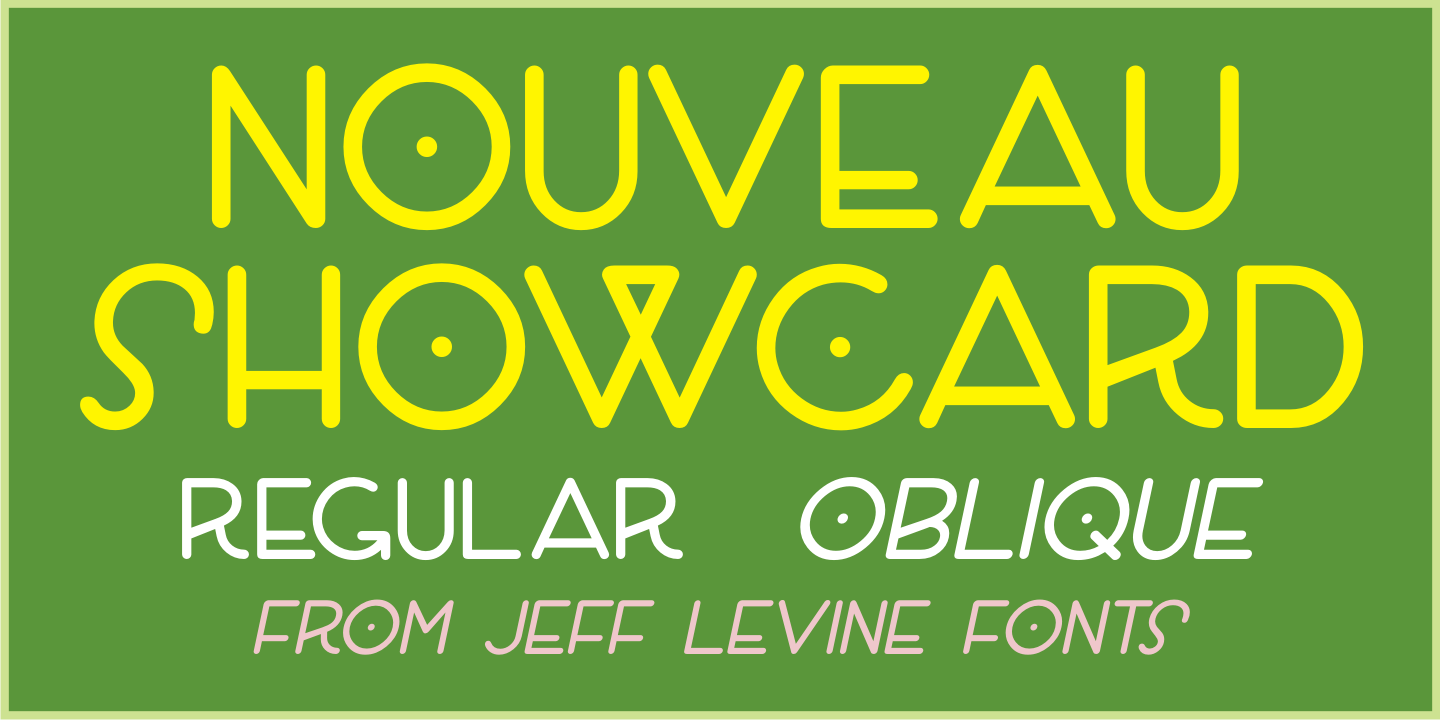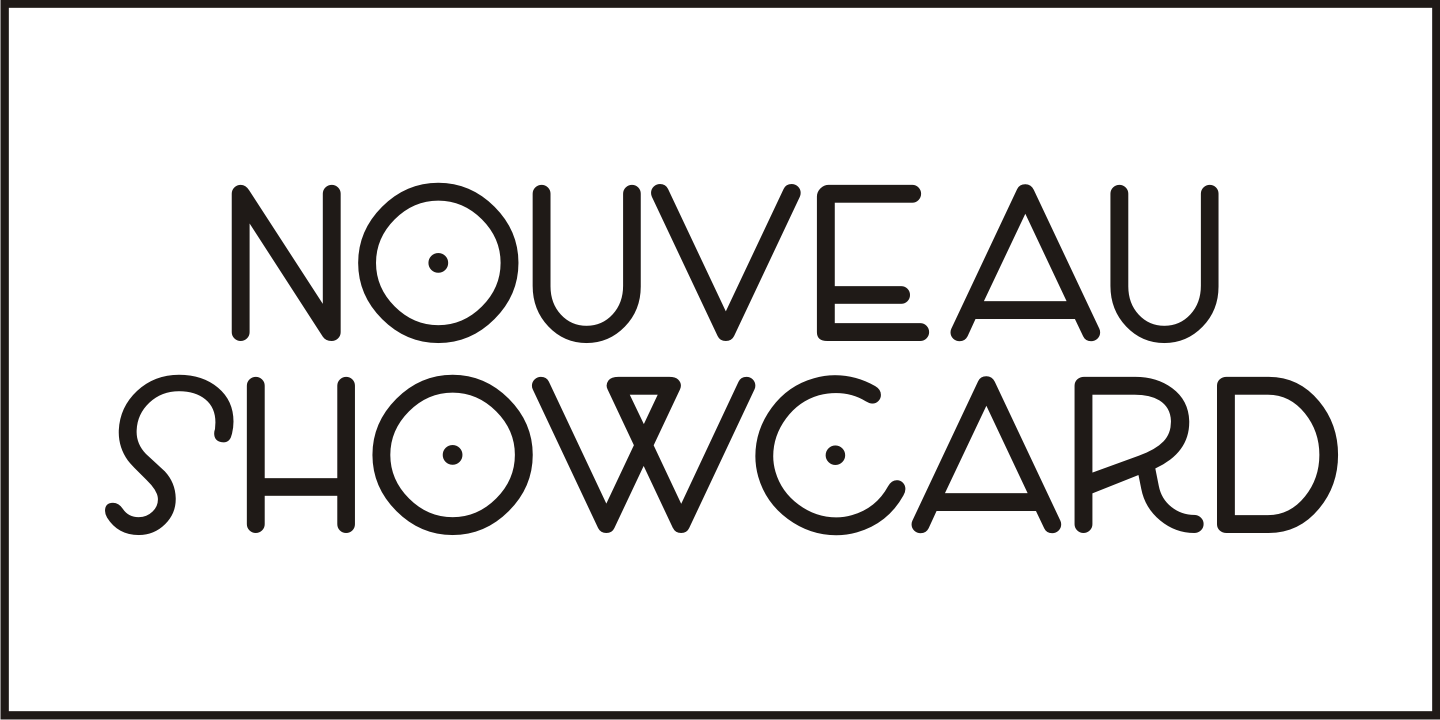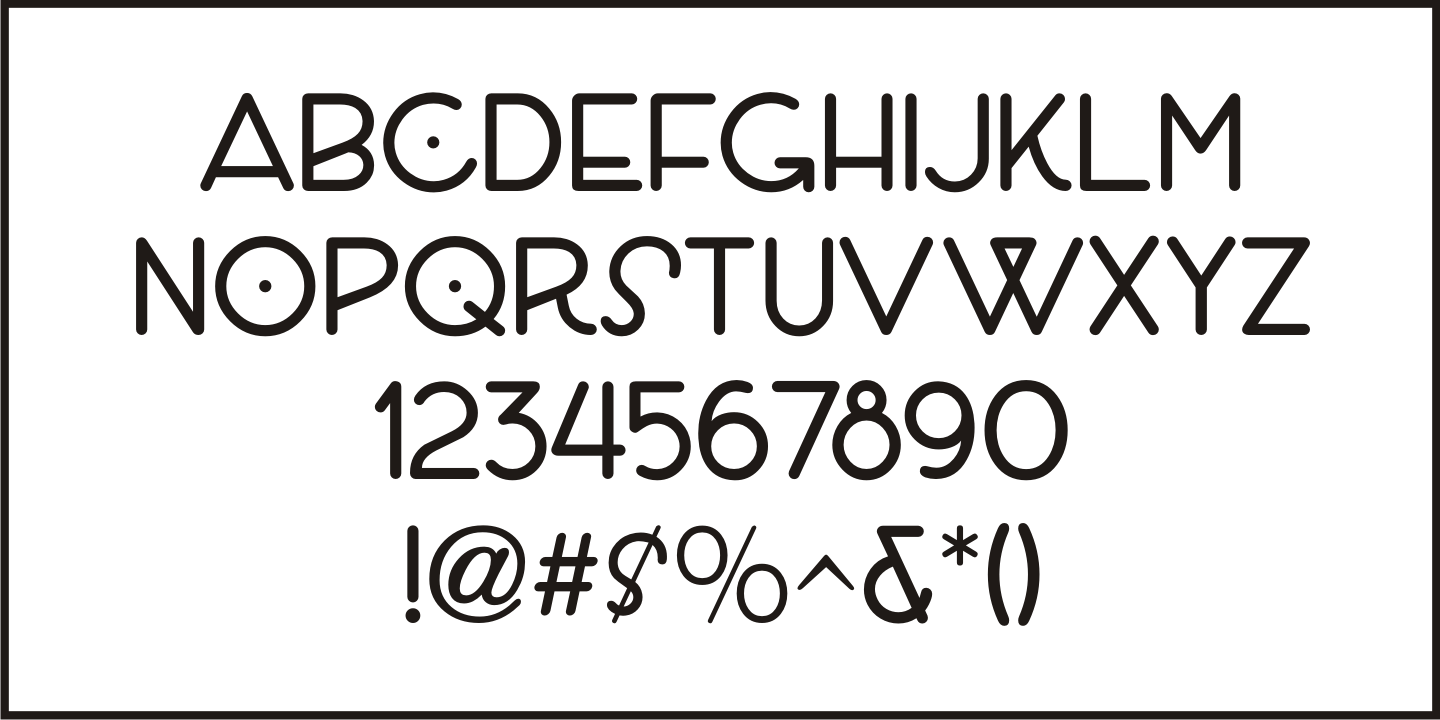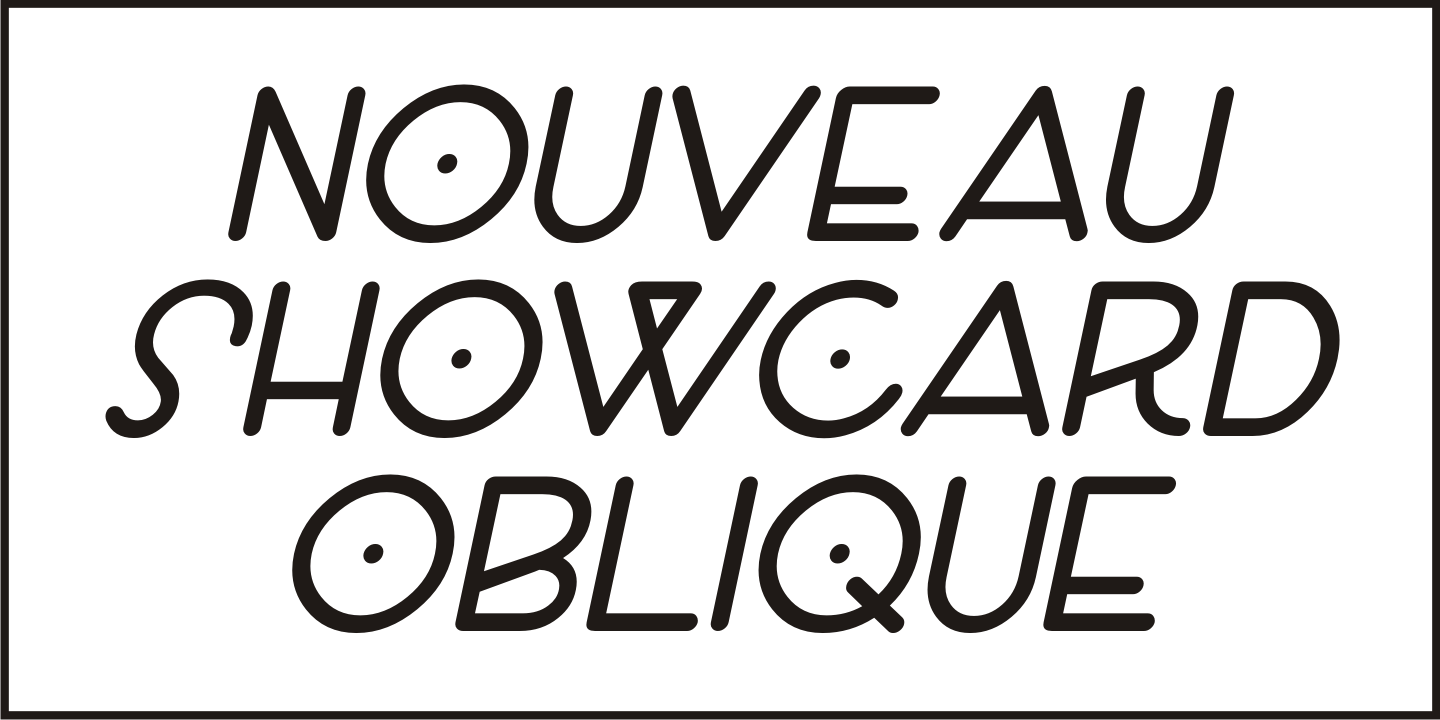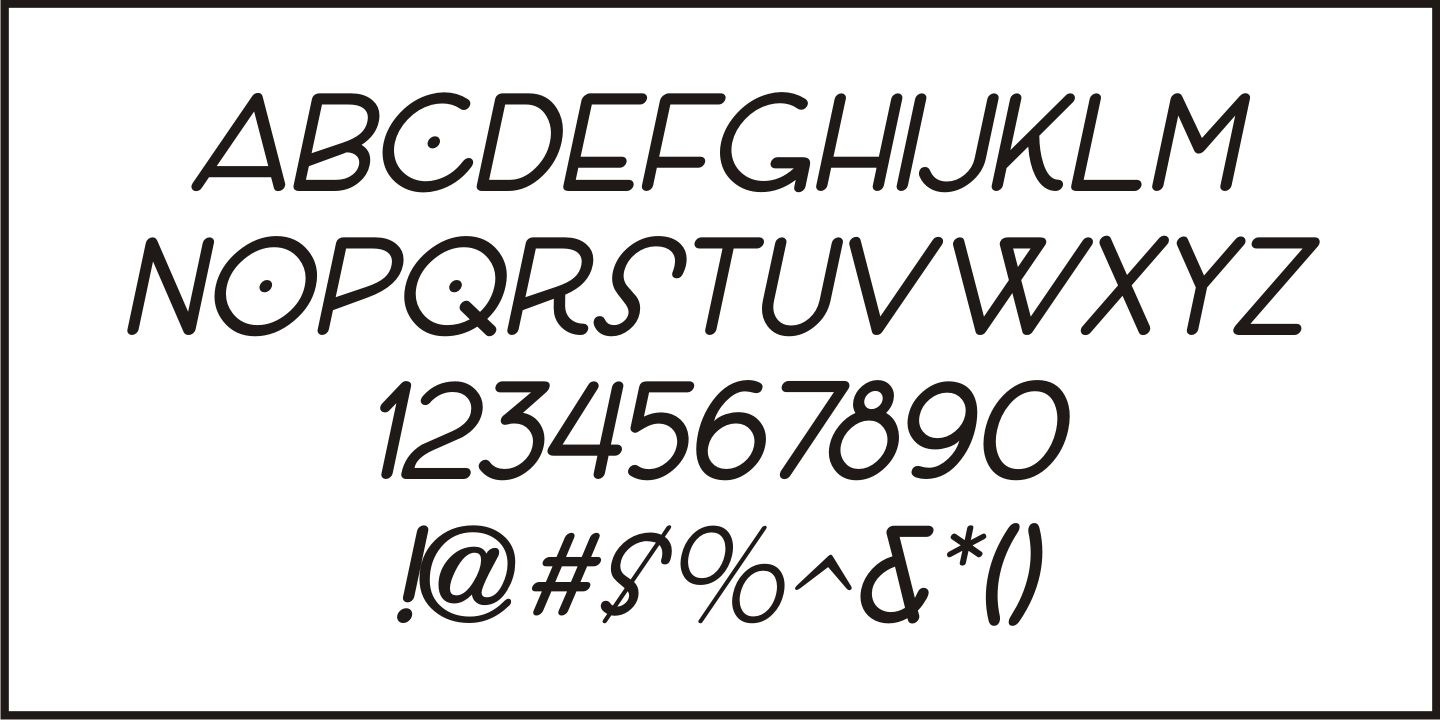
Nouveau Showcard
The 1920 song 'Noah's Wife Lived a Wonderful Life ('Cause Noah Had to Stay Home)” is another example of one of those overly-worded song titles from early 20th Century composers.
What's more important for type enthusiasts is that the title was hand lettered with a round nib pen in a slightly ragged Art Nouveau style.
Cleaning up the ragged design, the end result became Nouveau Showcard JNL, which is available in both regular and oblique versions.
Nouveau Showcard JNL Regular by Jeff Levine Fonts